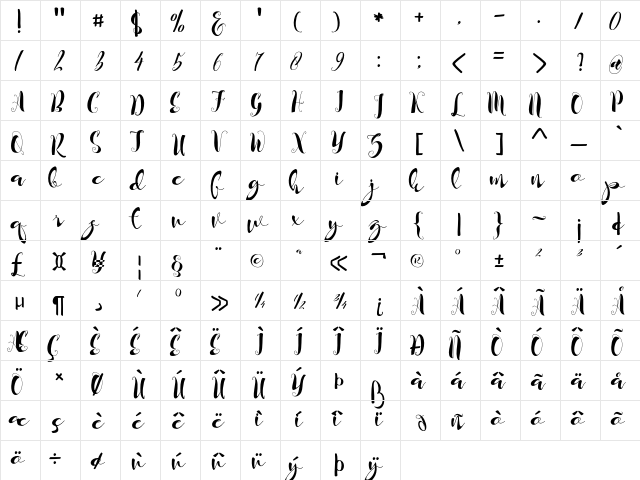
kayla Regular
Design Context for kayla Typeface
kayla is a composed and adaptable typeface that performs quietly and consistently across a wide range of design contexts.